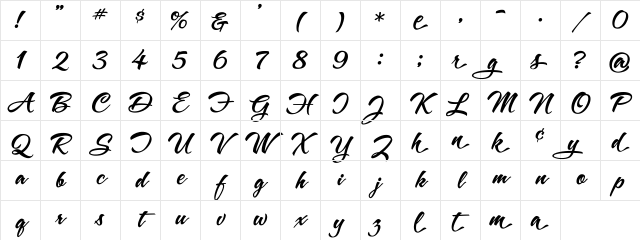
A&S Snapper Script Regular Free Font
A&S Snapper Script Regular
Foundry: SIGNFONTS-Art&Sign
Designer: Steve Contreras
Design Context for A&S Snapper Script
A&S Snapper Script flows with the natural rhythm of handwritten lettering, making it ideal for designs that call for warmth and personal expression.
Font Pairing: Combine A&S Snapper Script with a simple geometric sans for maximum contrast - the tension between flowing curves and clean structure is a classic typographic pairing.
Pro Tip: Use A&S Snapper Script for short runs of text - names, titles, or taglines. Extended body copy in script faces tires the eye quickly.